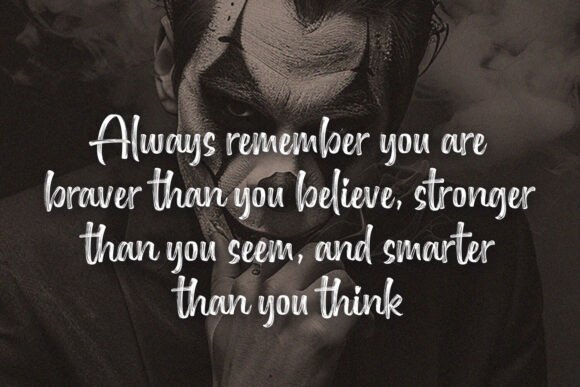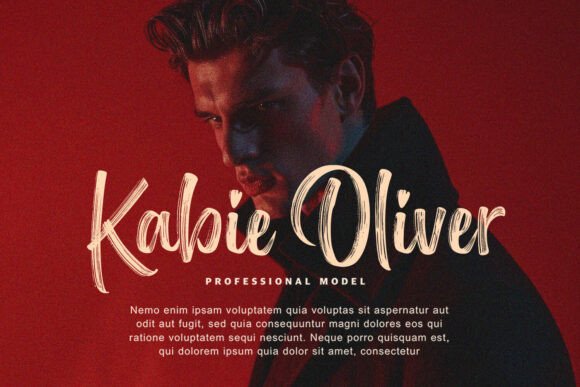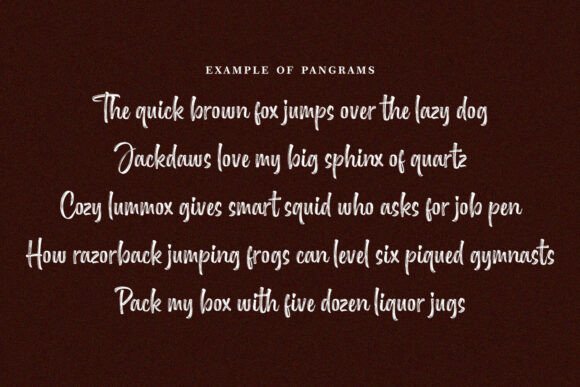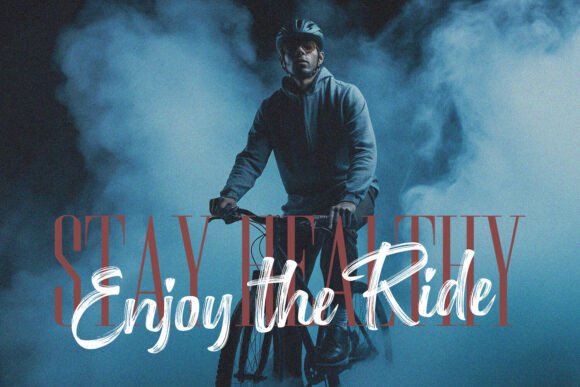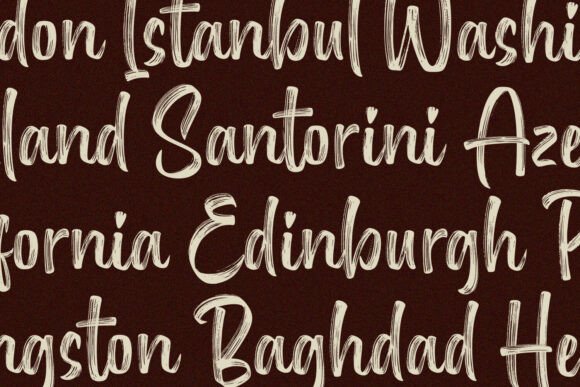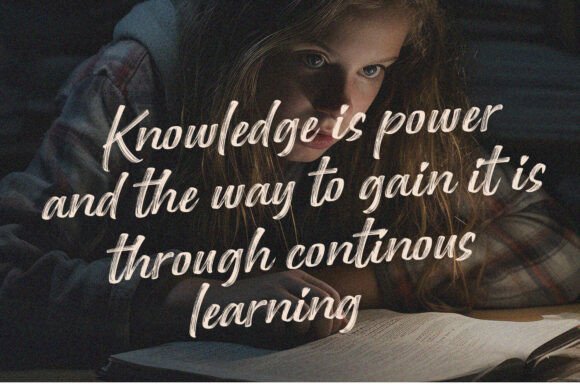
Introducing Delighter Font: Elevate Your Design with a Casual and Artistic Touch
In the world of typography, fonts play a crucial role in conveying the tone and personality of a message. For designers and crafters looking to add a personal touch to their work, Delighter Font is an excellent choice. This handwritten brush script font is designed to impart a casual and natural appearance, making it perfect for a wide range of design projects.
The Characteristics of Delighter Font
Delighter is a beautifully crafted handwritten brush script font that exudes a sense of relaxation and friendliness. Its unique brush style gives it a distinctive look that can instantly elevate the visual appeal of any design. With Delighter, you can convey a range of moods, from calm and approachable to artistic and eccentric. This versatility makes it an excellent choice for designers who want to add a personal touch to their work.
What Makes Delighter Font Special?
So, what sets Delighter apart from other fonts? Here are a few key features that make it an excellent choice for designers and crafters:
- Casual and Natural Appearance: Delighter’s handwritten brush script style gives it a casual and natural appearance that’s perfect for designs that need a personal touch.
- Versatile: This font can convey a range of moods, from relaxed and friendly to artistic and eccentric, making it suitable for a wide range of design projects.
- Highly Legible: Despite its casual appearance, Delighter is highly legible, making it perfect for designs that require a clear and readable font.
- Perfect for Creative Projects: Delighter is ideal for logos, quotes, product packaging, or anything that needs a typographic turbo-boost.
Use Cases for Delighter Font
Delighter Font is a versatile font that can be used in a variety of design projects. Here are some use cases where Delighter can make a significant impact:
- Logos: Create a unique and memorable logo for your brand with Delighter’s distinctive handwritten brush script style.
- Quotes and Posters: Add a personal touch to your quotes and posters with Delighter’s casual and natural appearance.
- Product Packaging: Make your product packaging stand out with Delighter’s artistic and eccentric style.
- Social Media Graphics: Elevate your social media graphics with Delighter’s highly legible and visually engaging font.
Why Designers and Crafters Love Delighter Font
Designers and crafters love Delighter Font for its unique and artistic style. Here are a few reasons why:
- Easily Readable: Delighter is highly legible, making it easy for readers to understand the message.
- Customizable: Delighter can be customized to fit your brand’s personality and style.
- Time-Saving: With Delighter, you can create stunning designs in no time, saving you time and effort.
- Unique and Creative: Delighter’s artistic and eccentric style makes it perfect for designers and crafters who want to add a personal touch to their work.
In conclusion, Delighter Font is an excellent choice for designers and crafters looking to add a personal touch to their work. Its casual and natural appearance, versatility, and high legibility make it perfect for a wide range of design projects. Whether you’re creating logos, quotes, product packaging, or social media graphics, Delighter is sure to elevate your design and make it more visually engaging.